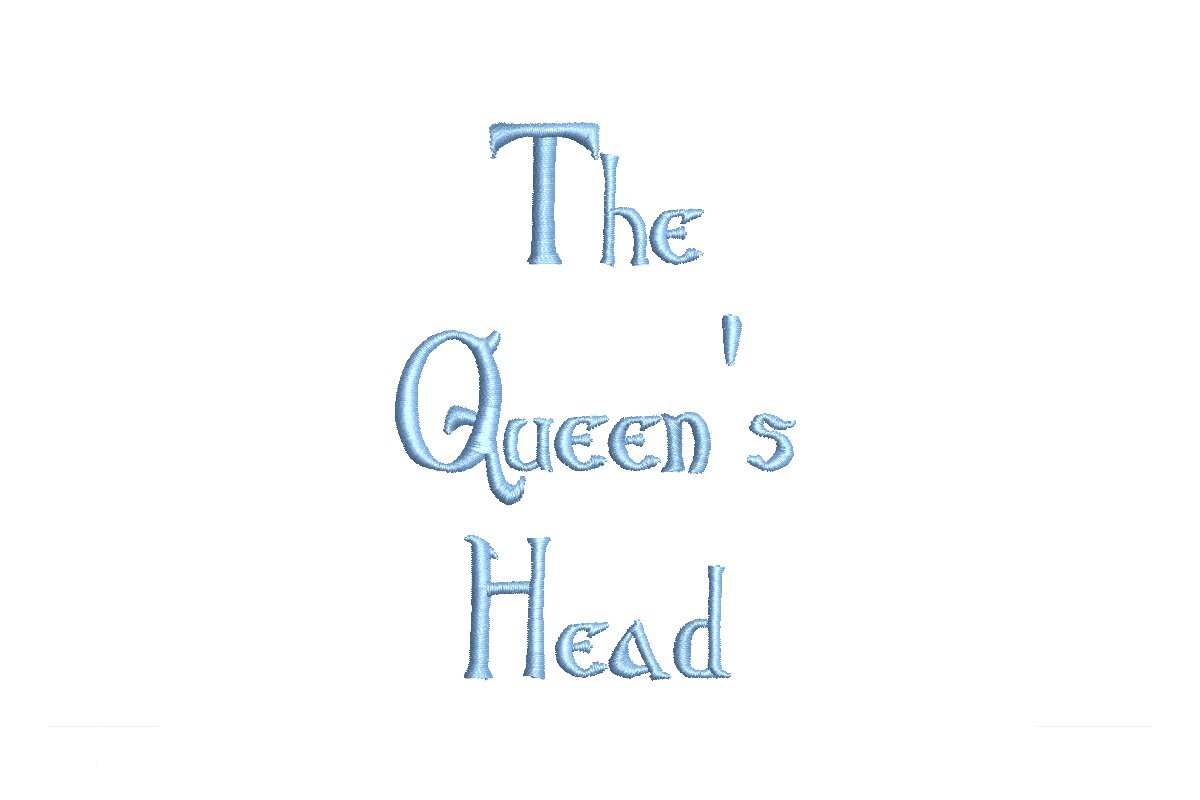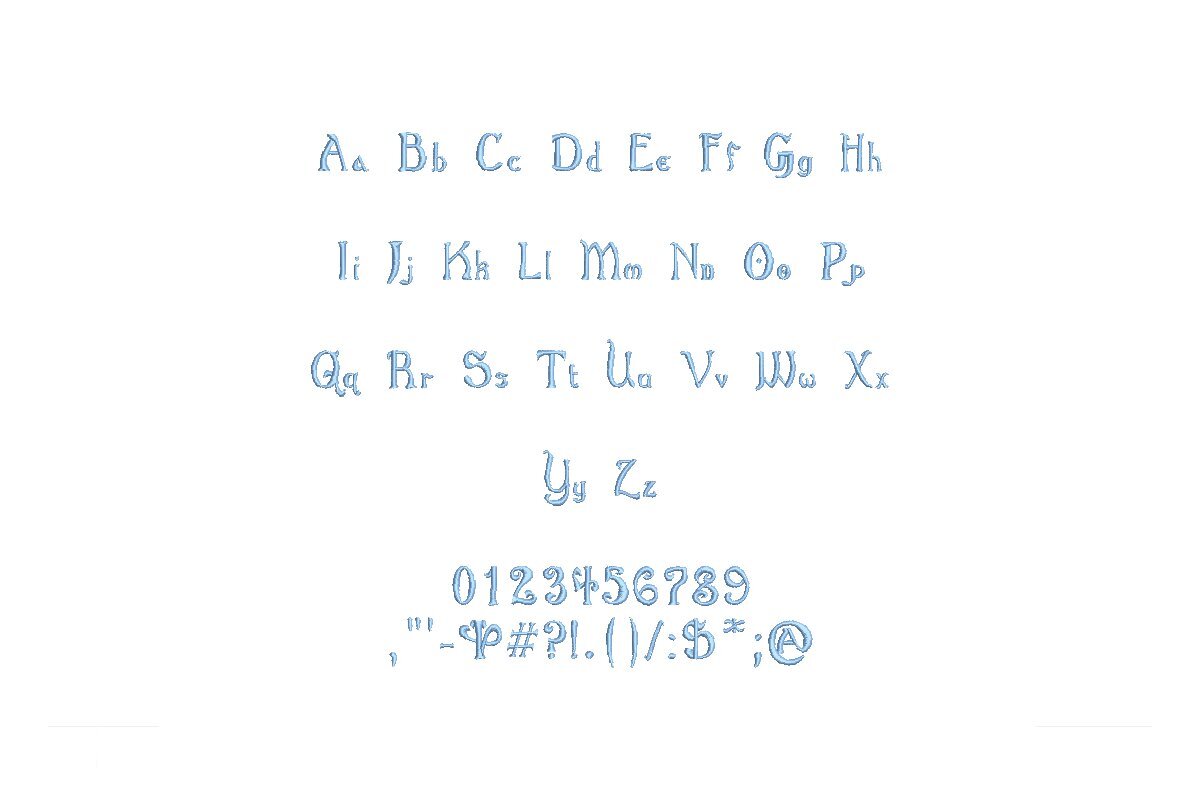
Introducing The Queens Head ESA Font - Regal Embroidery at Your Fingertips! Expertly crafted for seamless compatibility with Wilcom Studio e4.5.6 and Hatch 3 versions and beyond, this font infuses your designs with royal elegance. Whether you're a professional or a creative enthusiast, The Queens Head ESA Font transports you to a world of regal possibilities. Seamlessly integrate it with the latest software for enhanced efficiency and precision in every stitch. Each design radiates the grace of royalty, ensuring your embroidery projects reign supreme. Don't miss the chance to add a touch of regality to your collection with The Queens Head ESA Font. Begin your journey into regal embroidery today!